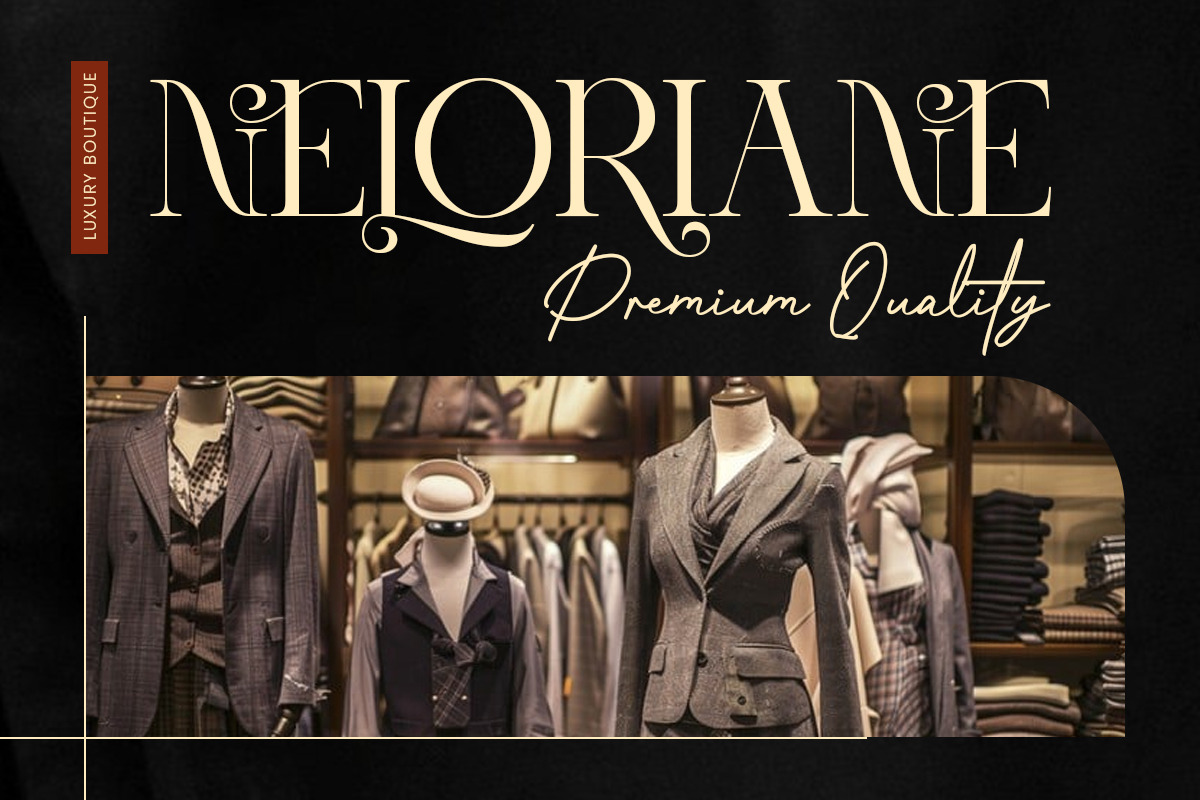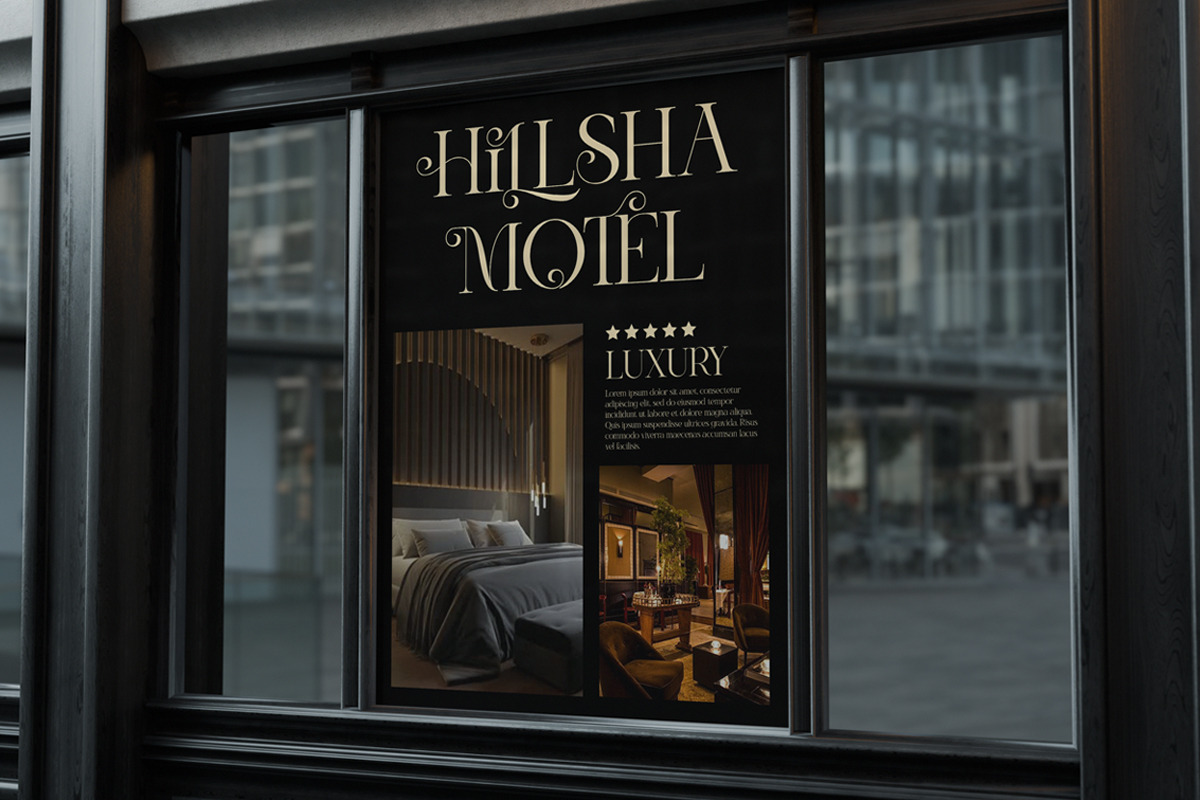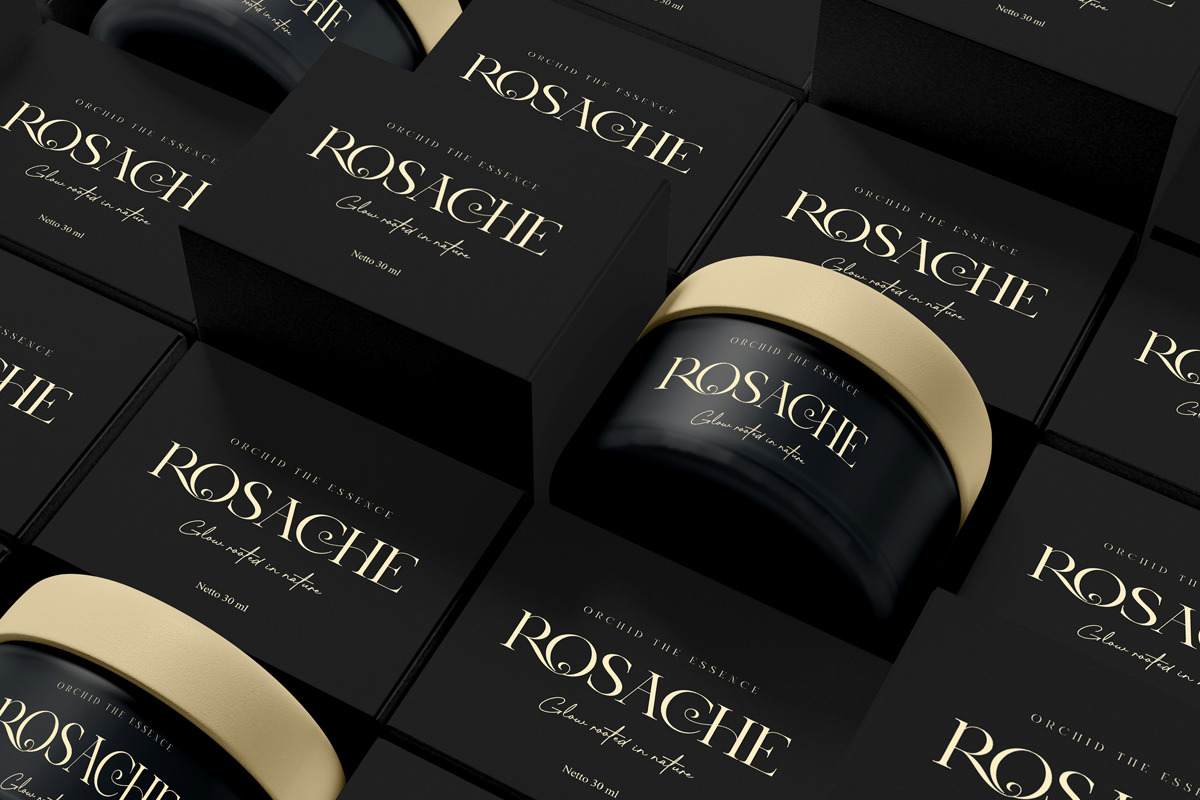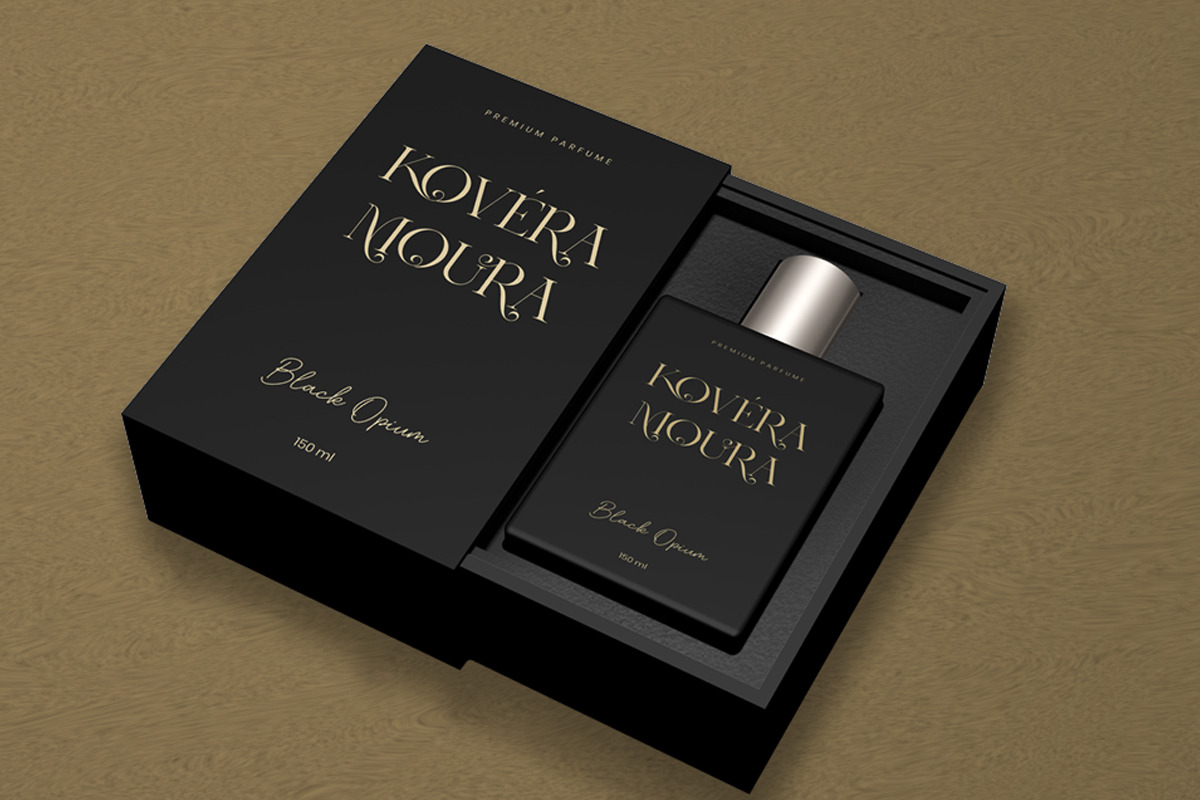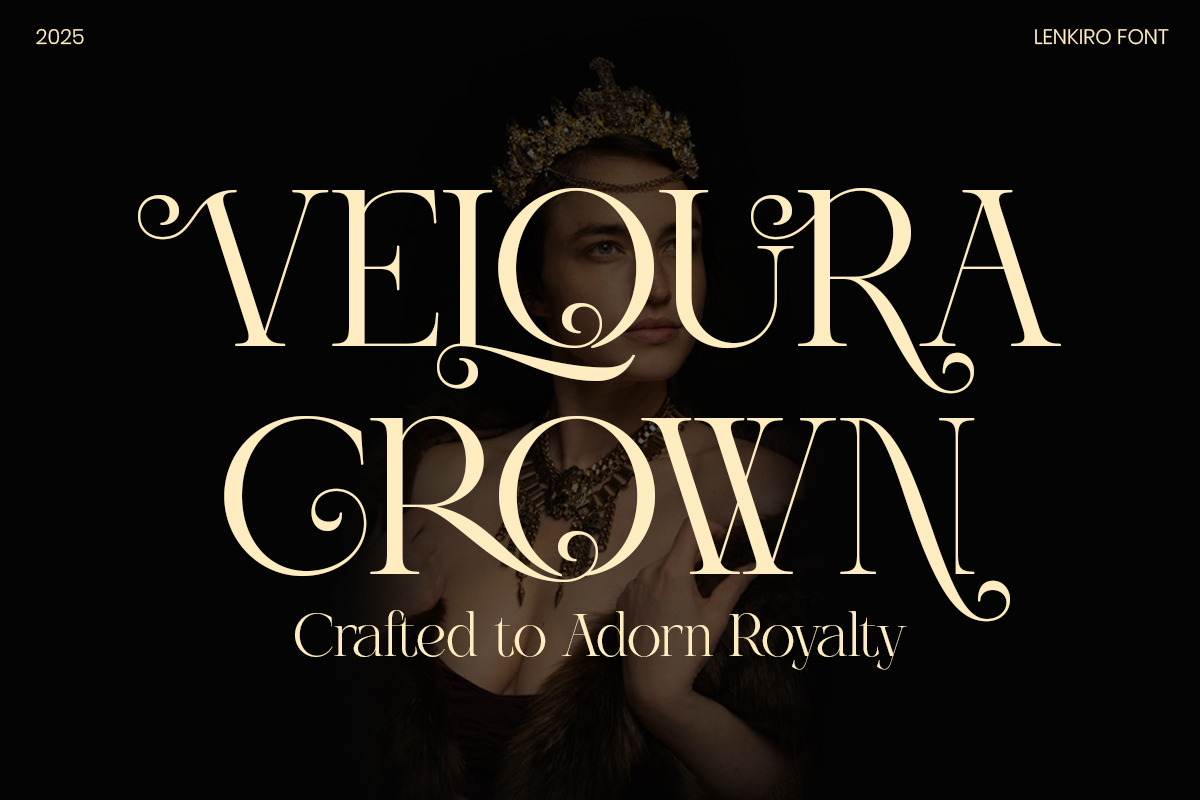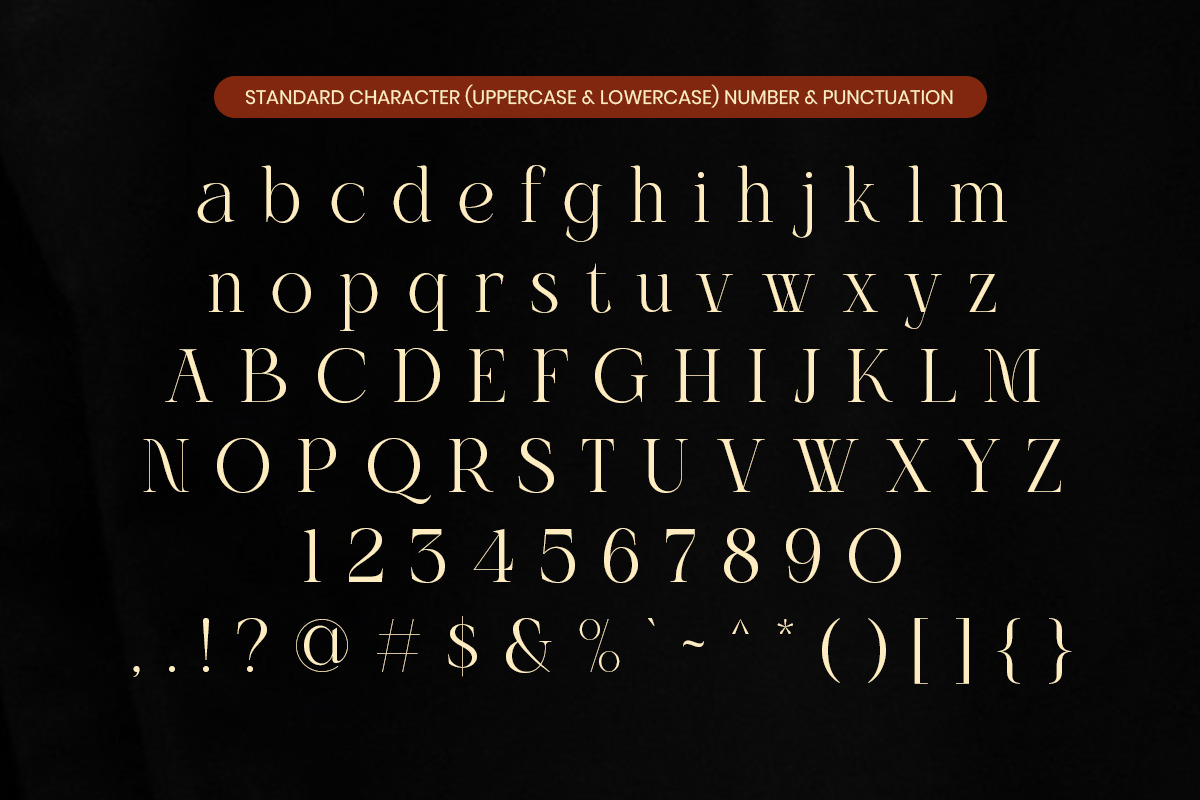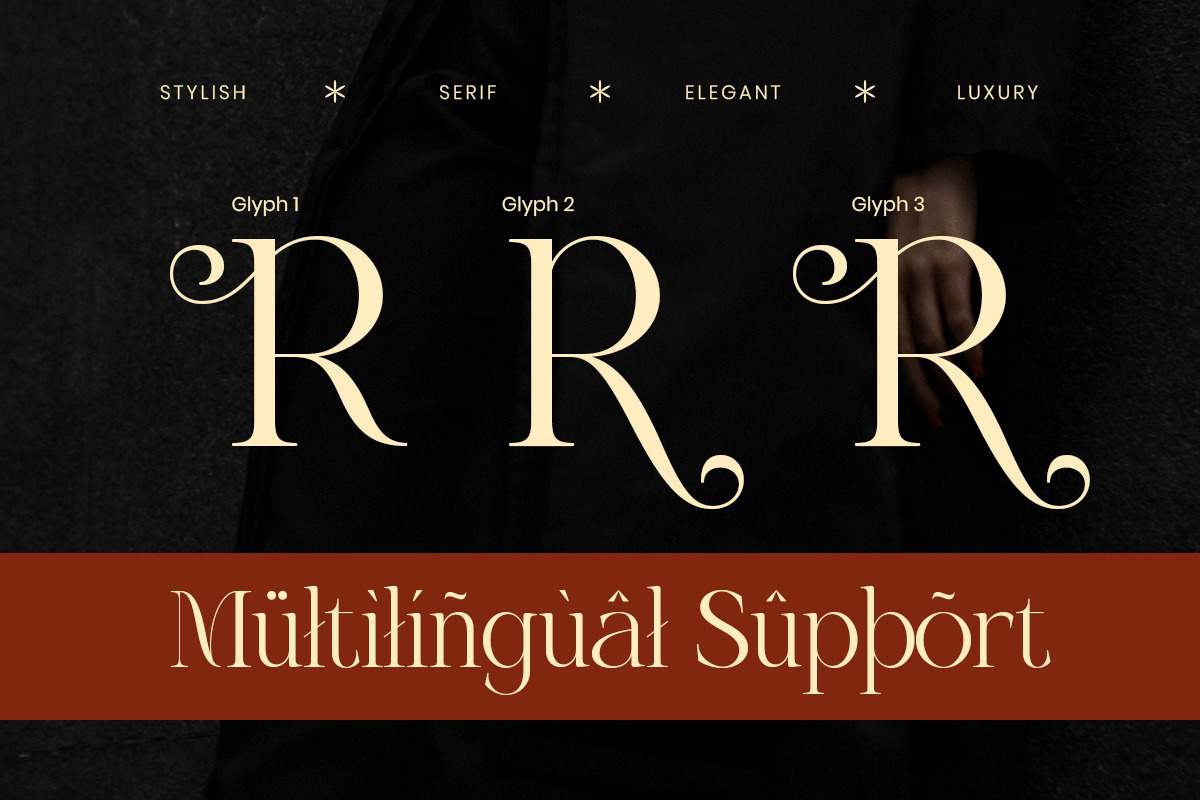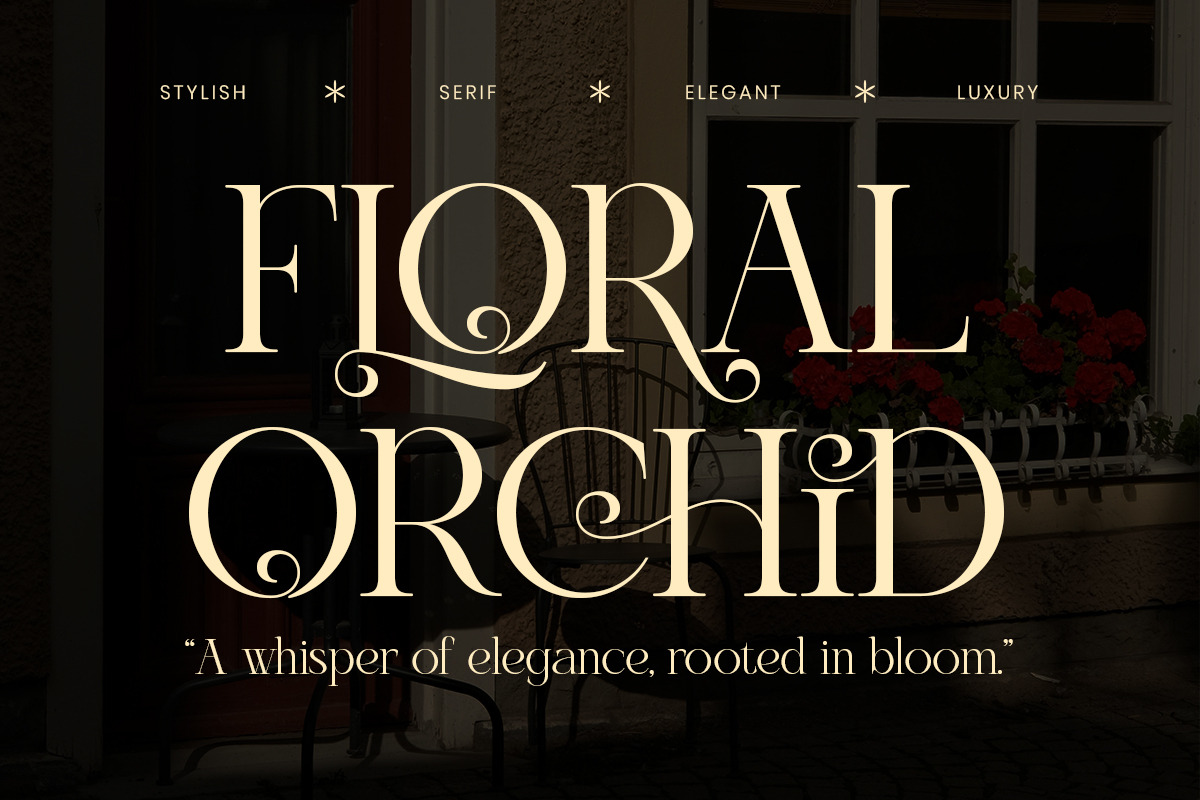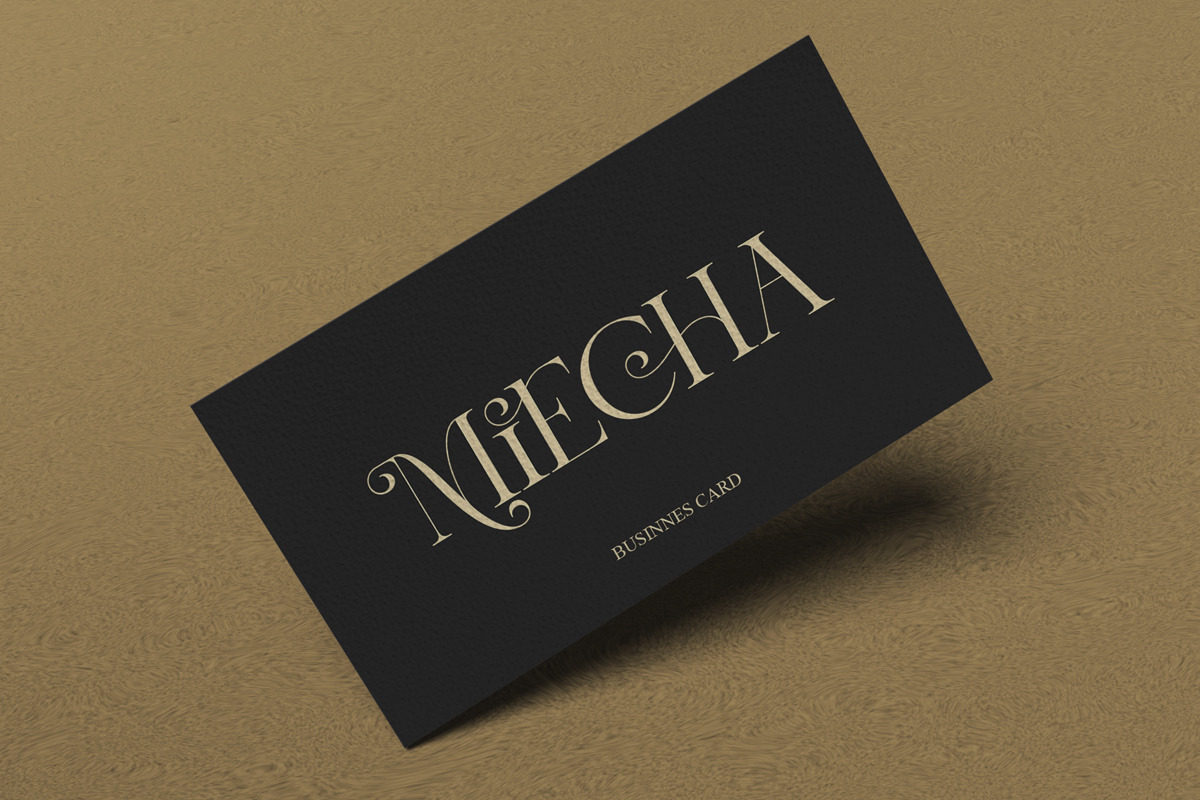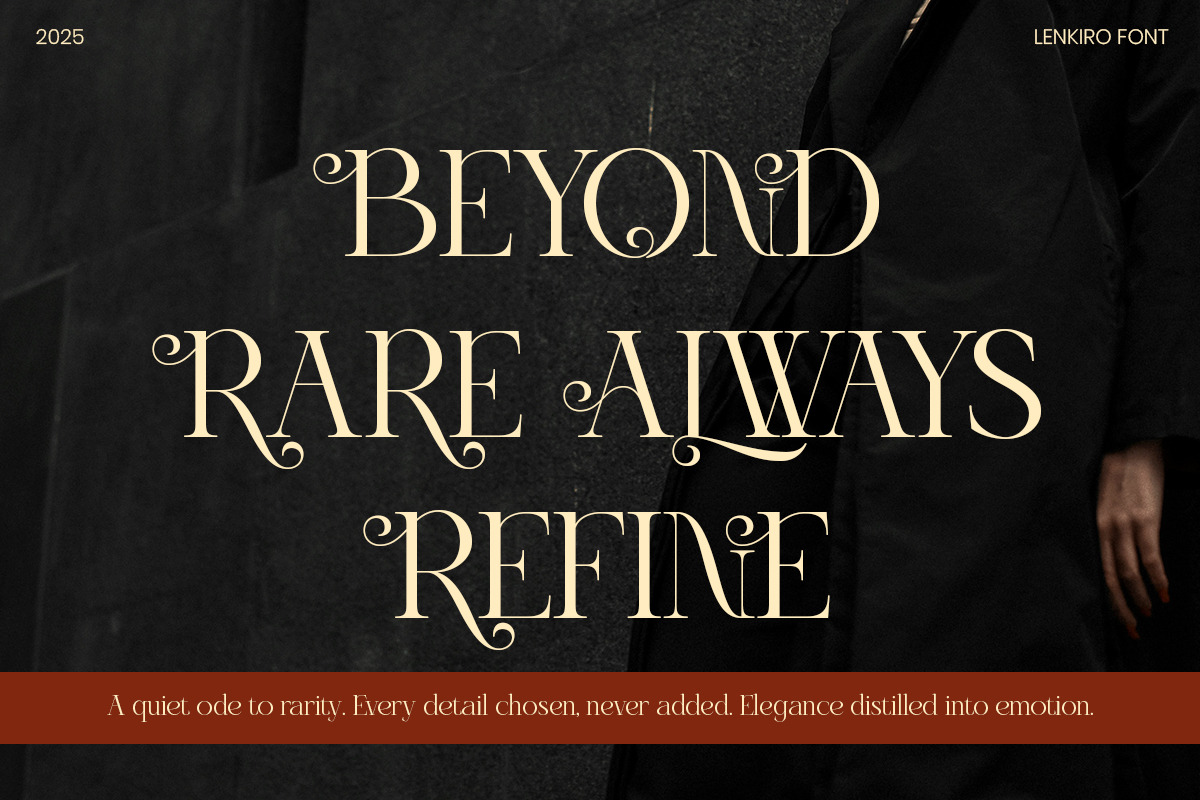
Lenkiro - Luxury Elegant Swash Serif
Lenkiro is a luxury serif typeface crafted for elegant and high-end design. Its flowing swashes and refined curves create a beautiful balance between softness and confidence.
Perfect for fashion branding, wedding invitations, editorial headlines, and premium packaging, Lenkiro delivers a timeless and stylish visual identity.
Designed for creatives who want bold elegance and standout typography.
- Regular & Italic
- Alternates & ligatures
- Elegant swash elements
Fashion branding, wedding design, boutique logos, editorial layouts, beauty packaging, luxury identity